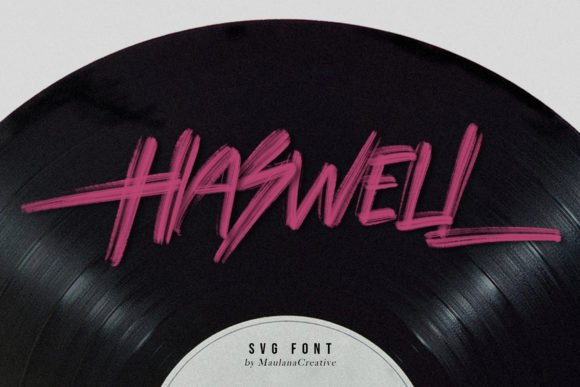
Introduction to Haswell Font
Haswell is a handwritten brush font.
It is perfect for signatures, logos, branding, packaging and more .
Why Choose Haswell Font?
Haswell Font offers exceptional quality and versatility, making it a valuable addition to your design toolkit. Whether you’re creating for personal projects or commercial use, Haswell Font delivers professional results.